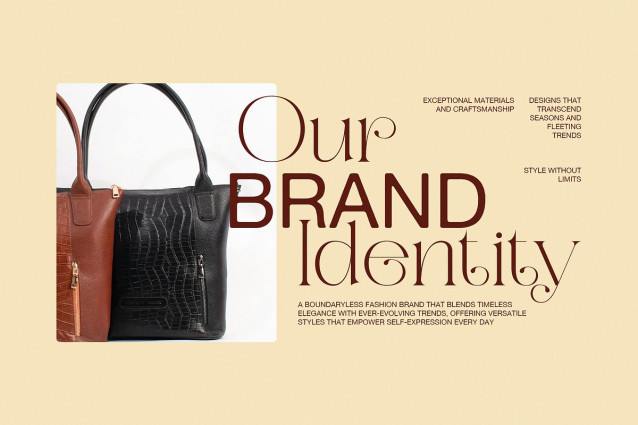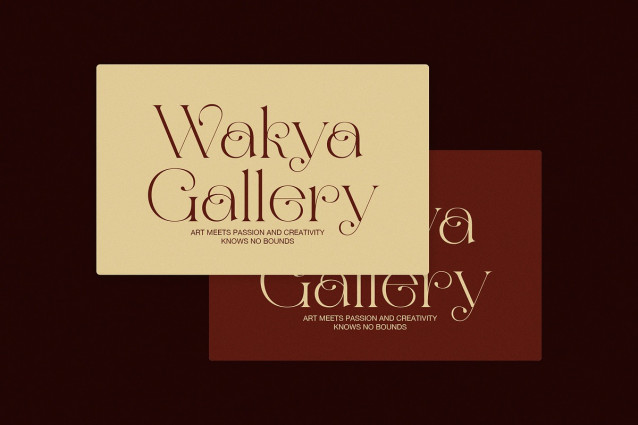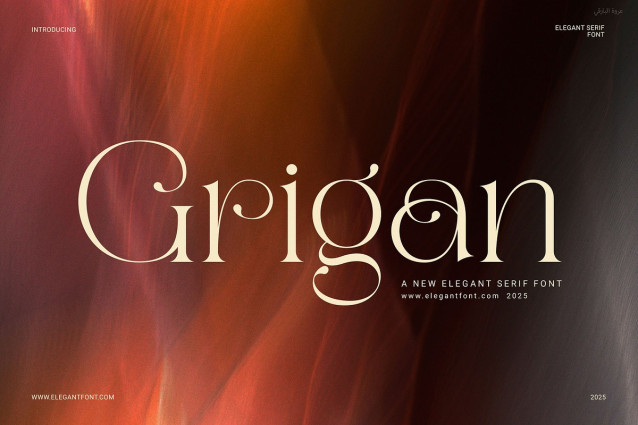
Grigan Font
Grigan Font – Stylish Serif Font is a modern serif typeface that brings elegance, balance, and character to your design. Its sleek letterforms and smooth curves create a clean, stylish look that fits perfectly in both bold and subtle layouts.
This font was built for clarity and beauty. With well-proportioned shapes and functional ligatures, Grigan adds a refined edge to any creative project. Whether you’re working on a logo or designing a product label, this font helps your message stand out.
Why choose Grigan?
Because it’s flexible, easy to use, and looks great across all platforms. Not only does it fit branding work, but it also works well in digital layouts, social media, and printed content. As a result, your projects stay consistent and professional from start to finish.